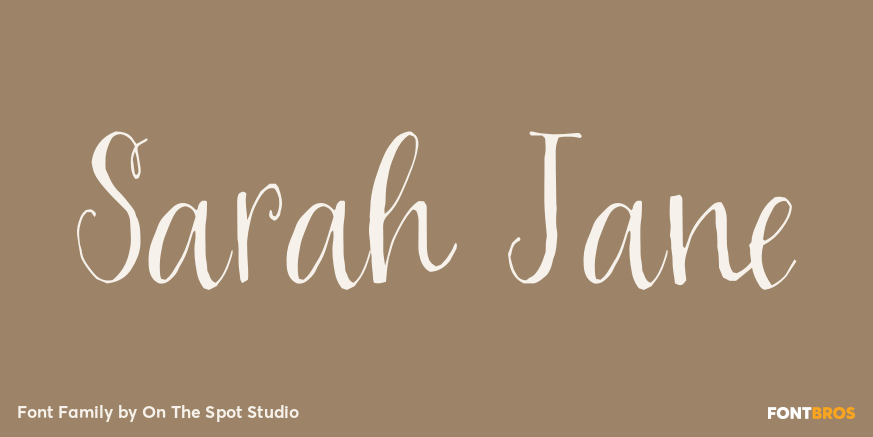
Sarah Jane
About Sarah Jane
A lovely hand drawn script font with a calligraphic feel. Includes uppercase, lowercase, numbers and limited punctuation. *Please note that word processing software like WORD and other word processing programs may not display script fonts correctly.…